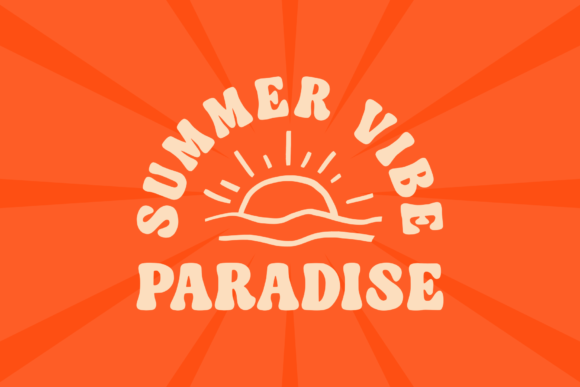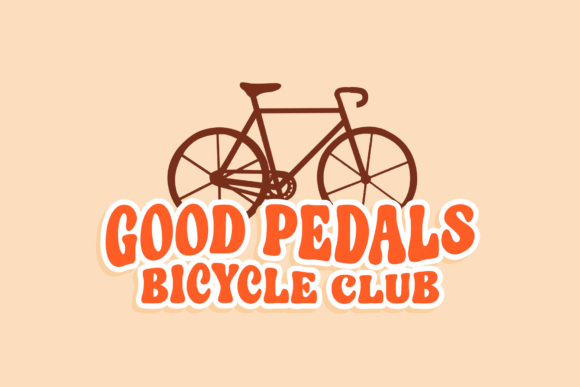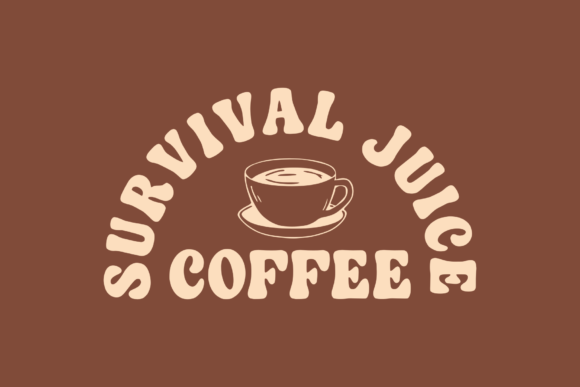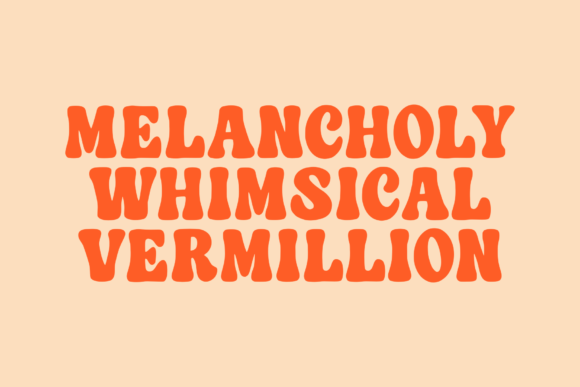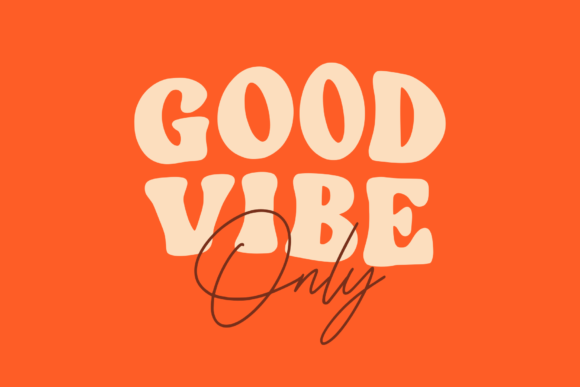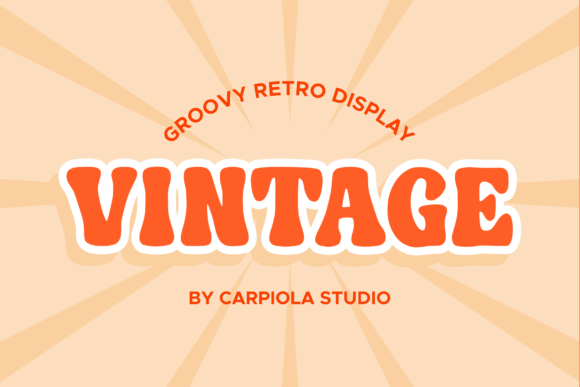
Introducing Essenco Paradiso Font: A Timeless Retro Vintage-Style Display Font
Are you a designer or crafter looking for a font that can add a touch of elegance and playfulness to your designs? Look no further than Essenco Paradiso Font. This beautiful and timeless retro vintage-style display font is perfect for creating eye-catching wall posters, logos, branding, and quotes that will leave a lasting impression.
What Makes Essenco Paradiso Font So Special?
Essenco Paradiso Font is a unique and beautiful font that features a distinctive retro vintage style. Each letter has a one-of-a-kind look that will bring your designs to life with a playful touch. The font’s classic and timeless design makes it perfect for a wide range of design projects, from modern branding and advertising to traditional craft projects.
Essenco Paradiso Font is an excellent choice for designers and crafters who want to add a touch of sophistication and elegance to their work. The font’s versatility makes it suitable for a variety of design projects, including:
- Wall posters: Create eye-catching posters that will grab attention and leave a lasting impression.
- Logos and branding: Use Essenco Paradiso Font to create a unique and memorable logo that will set your brand apart.
- Quotes and typography: Add a touch of elegance and sophistication to your quotes and typography projects.
- Craft projects: Use Essenco Paradiso Font to add a personal touch to your craft projects, such as handmade cards, invitations, and scrapbooking.
Key Features of Essenco Paradiso Font
Here are some of the key features that make Essenco Paradiso Font an excellent choice for designers and crafters:
- Unique and beautiful lettering: Each letter has a distinctive and beautiful look that will add a touch of elegance to your designs.
- Retro vintage-style: The font features a classic and timeless retro vintage style that will add a touch of sophistication to your designs.
- Playful touch: The font’s playful design makes it perfect for adding a touch of whimsy and fun to your designs.
- Versatile: Essenco Paradiso Font is suitable for a wide range of design projects, from modern branding and advertising to traditional craft projects.
Tips for Using Essenco Paradiso Font
Here are some tips for using Essenco Paradiso Font to get the most out of your designs:
- Experiment with different sizes: Essenco Paradiso Font looks great in a variety of sizes, from large display fonts to smaller body text.
- Pair with other fonts: Try pairing Essenco Paradiso Font with other fonts to create a unique and interesting contrast.
- Use in combination with images: Use Essenco Paradiso Font in combination with images to create a visually appealing design.
- Don’t be afraid to get creative: Essenco Paradiso Font is a versatile font that can be used in a variety of creative ways, so don’t be afraid to experiment and try new things.
| Author | Carpiola Studio |
Essenco Paradiso Font is a beautiful and timeless retro vintage-style display font that is perfect for designers and crafters who want to add a touch of elegance and playfulness to their designs. With its unique and beautiful lettering, versatile design, and playful touch, Essenco Paradiso Font is an excellent choice for a wide range of design projects. Whether you’re creating wall posters, logos, branding, or quotes, Essenco Paradiso Font is sure to bring your designs to life.